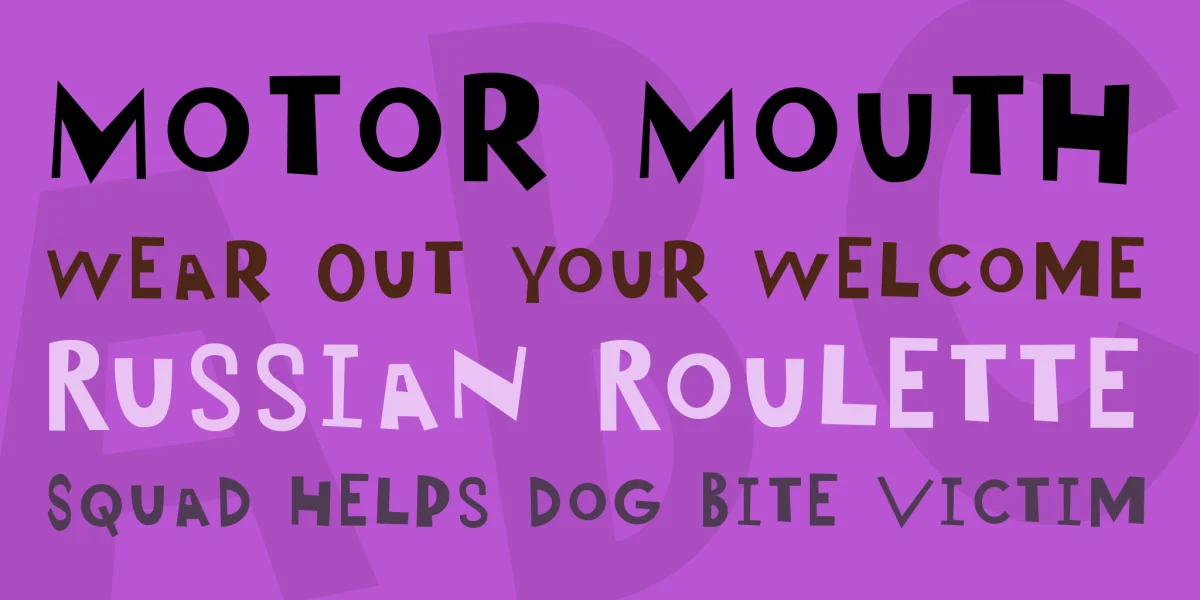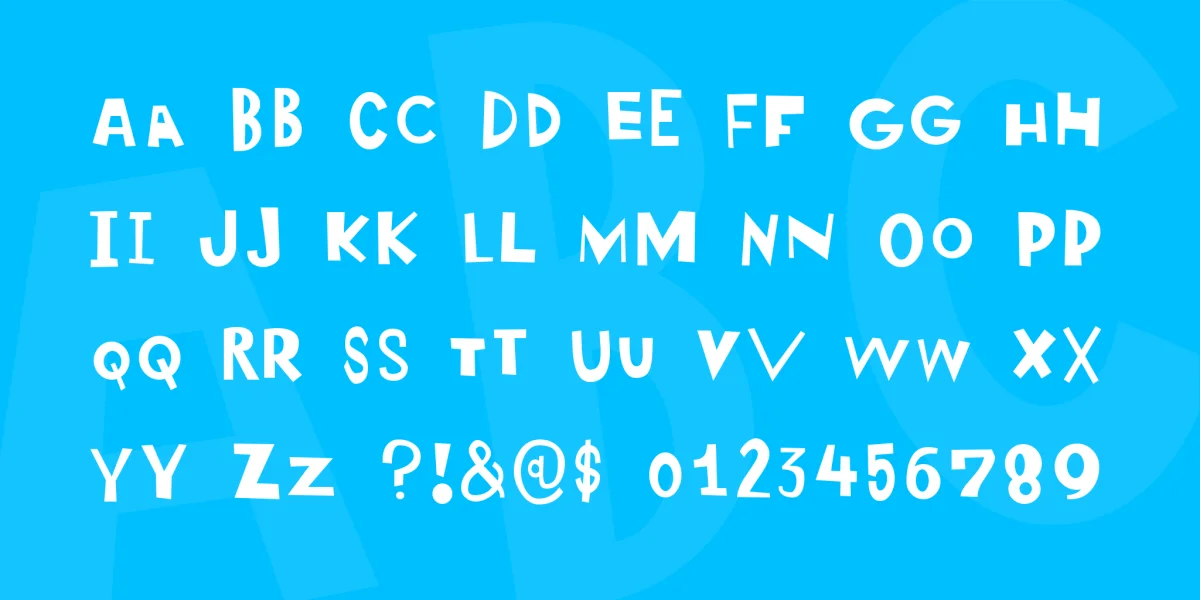
OMG! This font looks like a mess!
But, in all it's weirdness it makes your text look fun and weird.
If you take a closer look at the letters you'll find that the curves are quite smooth!